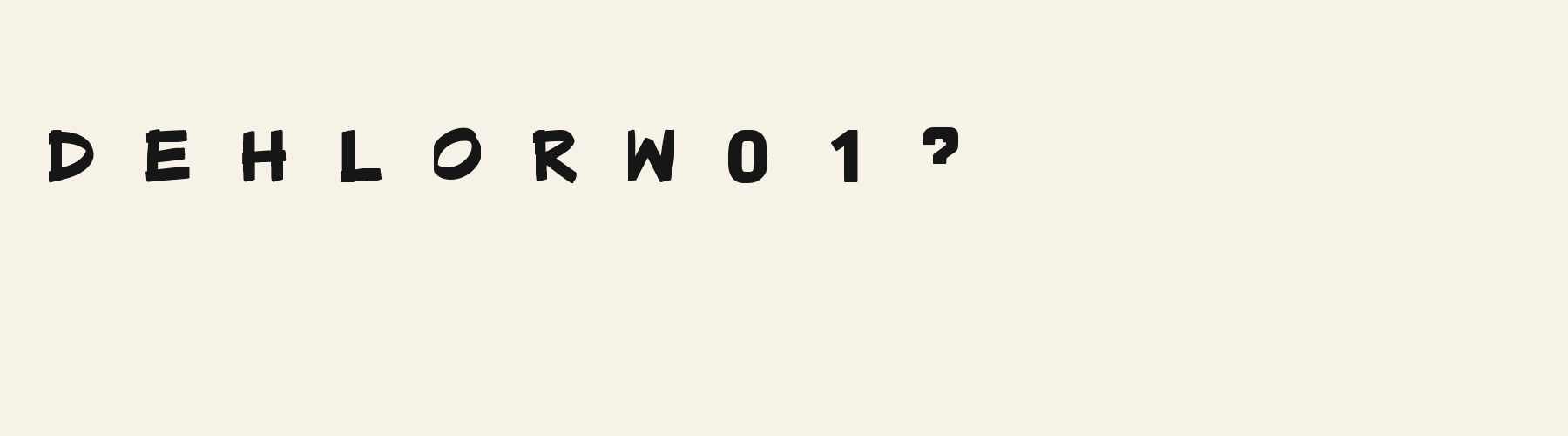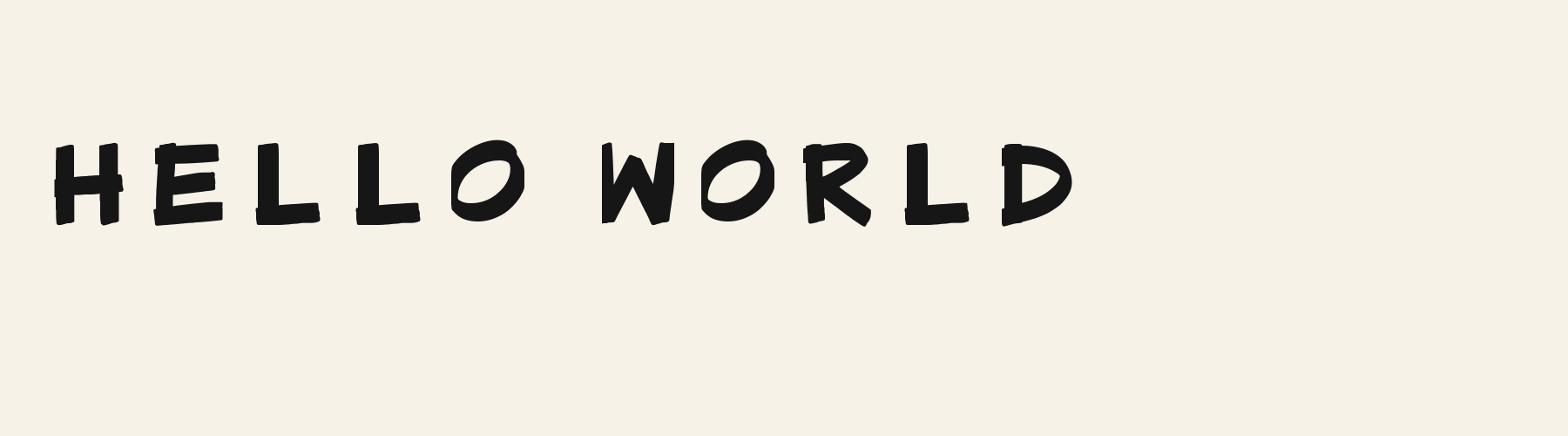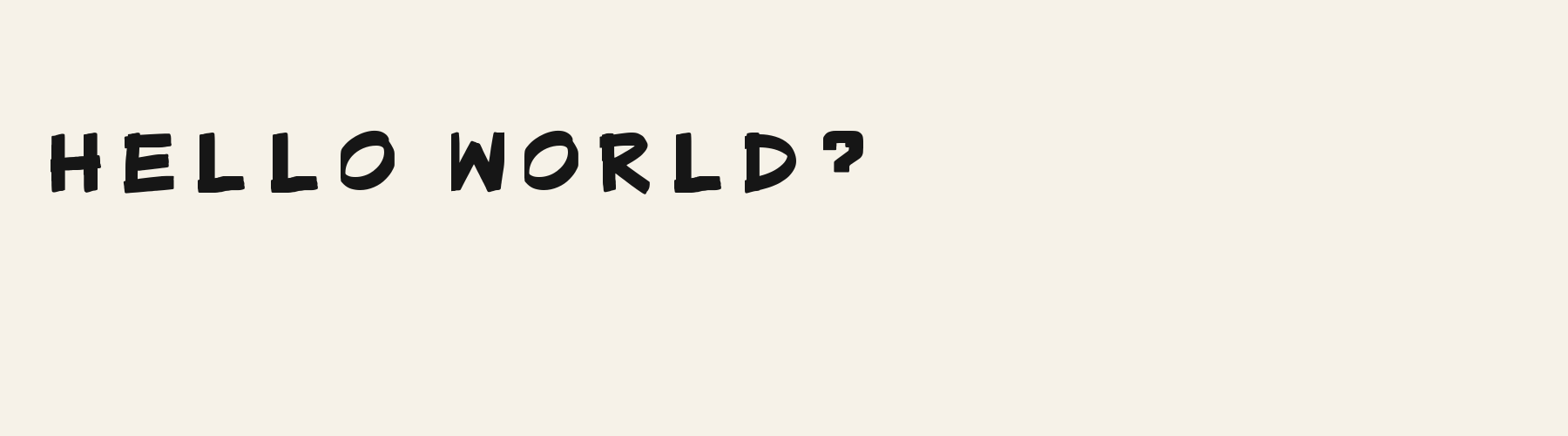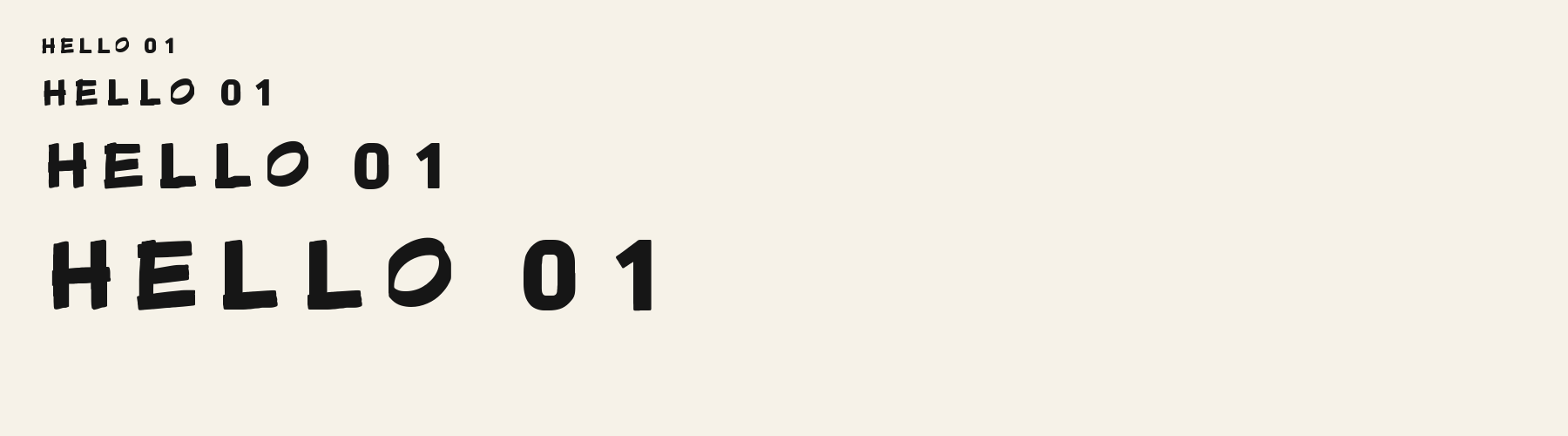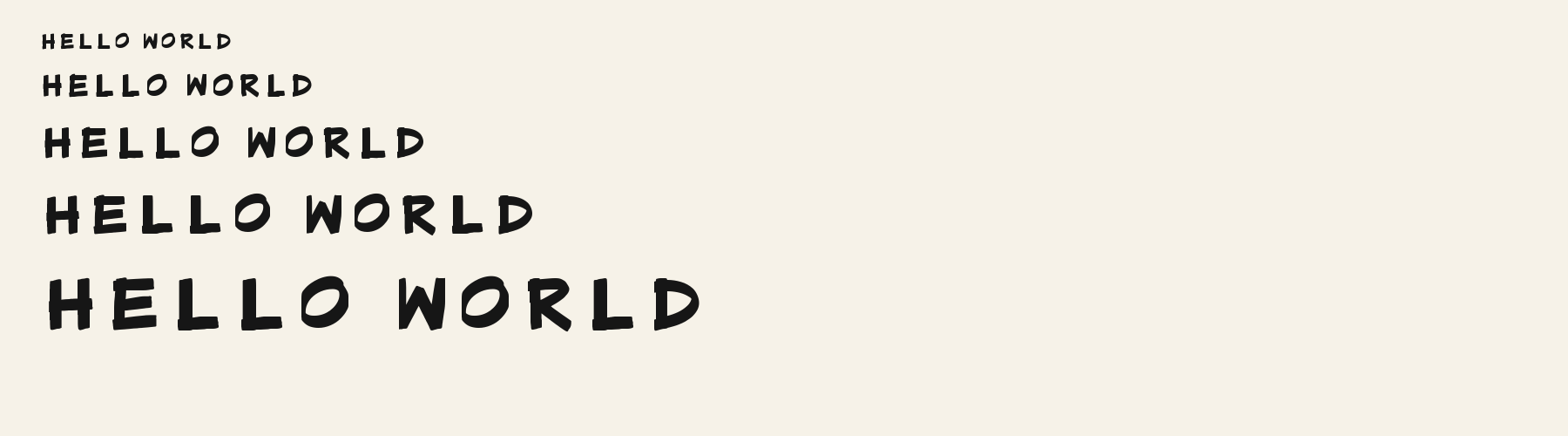
Marker Broad Flat Dense Overlap Display Font
Marker Broad Flat puts dense black strokes around compact openings, with blunt ends and small ledges at overlapping joins.
Dense Overlap Display Letterforms
Marker Broad Flat puts dense black strokes around compact openings, with blunt ends and small ledges at overlapping joins. The E has heavy horizontal bars that jut slightly past its upright, while the L plants a wide foot beneath a tall, nearly vertical stem. The O breaks up those squared shapes with a tilted oval counter and an uneven outer curve. Small changes in edge angle keep the capitals from feeling mechanically aligned. Together, the thick strokes and tightly held interiors give short phrases a forceful, informal voice suited to direct statements and punchy packaging copy.
Inspect repeated stems, the tilted O counter, and spaces around punctuation in your actual Latin wording. Compare tighter and wider spacing, especially beside heavy L feet. Check accented Latin letters and other scripts separately; these specimens establish neither their appearance nor their coverage.
Try this face for a short heading, with a lighter, restrained sans serif for supporting text and small labels. Its thick bars and conspicuous joins already supply strong texture, so a calmer companion could give details room to breathe.
Marker Broad Flat: letterforms and layout
E
Compare the original spacing with a slightly wider setting. The repeated L shapes create dense blocks of upright strokes and heavy feet; extra space can separate these masses while changing the compact rhythm.
Marker Broad Flat gives this phrase heavy horizontal bars, broad feet on L, and compact counters. Choose it when the lettering should form a dense, emphatic headline with visible overlap at the joins.
Marker Broad Flat font in use
MAKE SOME NOISE
Poster. Heavy strokes and blunt terminals give a short poster slogan an emphatic presence, while uneven edges keep it informal. SMALL BATCH
Product label. Broad horizontal bars and compact interiors give a brief product label a dense, assertive patch of lettering. OPEN LATE
Shop sign. The wide L feet and heavy E bars give a short shop message a direct, hand lettered character.
The scenes are illustrations drawn on this page with Marker Broad Flat itself, not client work.
About Marker Broad Flat
Its lowercase sits low: the x-height is 69.9% of the cap height, where the median for handwriting fonts is 73.2%, lower than 22 of the 29 other handwriting fonts. Ascenders on b, d, h, k and l rise 10.8% above the capitals, and descenders on g, j, p, q and y drop 24.4% of the cap height below the baseline, shallower than 22 of the 29 other handwriting fonts. Marker Broad Flat runs 13.7% wider than the median for handwriting fonts: an average lowercase letter, spacing included, is 82.3% as wide as the capitals are tall (an average capital, 90.6%). The o is wider than it is tall, 1.29 to 1, and B is the widest capital, at 1.04 times the width of H. The O stops 1.2% of the cap height short of H and stands 4.3% above the baseline.
The letters stand upright, leaning less than 2.5° either way. Vertical stems measure 25.5% of the cap height, the heaviest of all 19 handwriting fonts. Ink covers 48.4% of each lowercase letter's box (its advance width by the cap height), the darkest of all 30 handwriting fonts.
Its 95 characters include 52 Latin letters, plus 43 figures, punctuation marks and symbols; there are no accented Latin letters beyond A to Z. The word space measures 56.4% of the cap height, and the blank space either side of a lowercase letter takes up 12.4% of its width. The font carries no kerning, so spacing comes from each letter’s own side bearings. The figures have different widths, so columns of numbers set in Marker Broad Flat will not line up exactly.
Measured from the version 0.3.0 font file. Comparisons are with the 376 published library fonts measured on November 8, 2026, 30 of them handwriting fonts.
- Structure
- Wide flat-nib strokes with squared entry edges, visible overlap joins and compact counters
- What fonts pair well with Marker Broad Flat?
- Orbital Sans (sans serif), Buttress Bowl Sans Outline (sans serif) and Serif Flared Humanist (serif) are drawn on a different letter structure, so Marker Broad Flat can carry the headings while one of them sets the text. Each has its own page with a type tester for trying the pair.